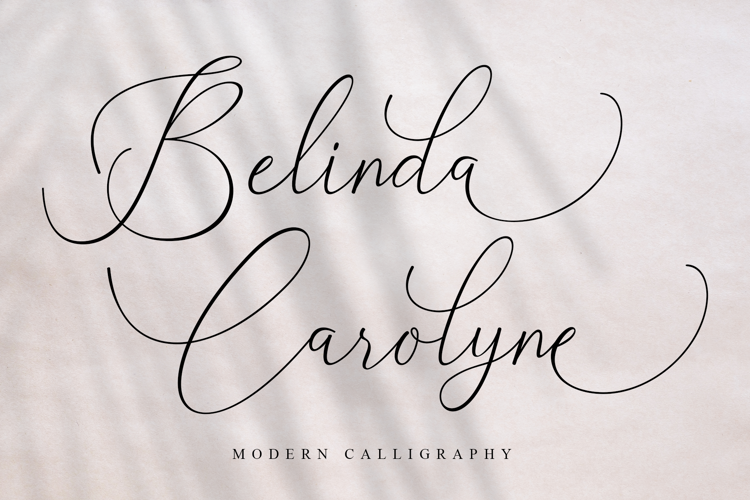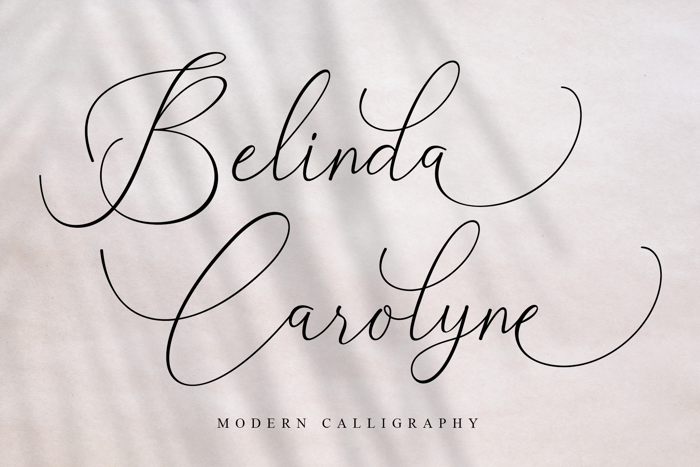
Belinda Carolyne Font
Introducing Belinda Carolyne
Hi Designer, Coming again to complete your script font collection..!Belinda Carolyne is a classic calligraphy font. Here you will get a beautiful script font. This font is available for some modern swirl that can make your work look elegant, sweet and perfect. With a style like this, this font will be suitable in use for logo's, branding projects, homeware designs, product packaging, mugs, quotes, posters, shopping bags, logo's, t-shirts, book covers, name card, invitation cards, greeting cards, and all your other lovely projects. You can use this font for your job very easily. Because there are many features in it. It contains the complete set of lower and uppercase letters, punctuation, numbers, web fonts, and multilingual support. This font also includes several ligatures and alternative style Stylistic Set For those of you who have software that is capable of working OpenType (Corel Draw / Photoshop / Illustrator / InDesign). Files included: